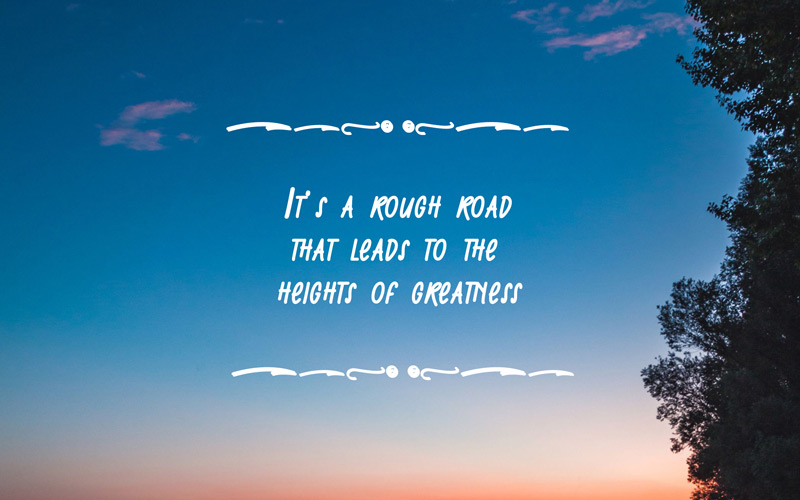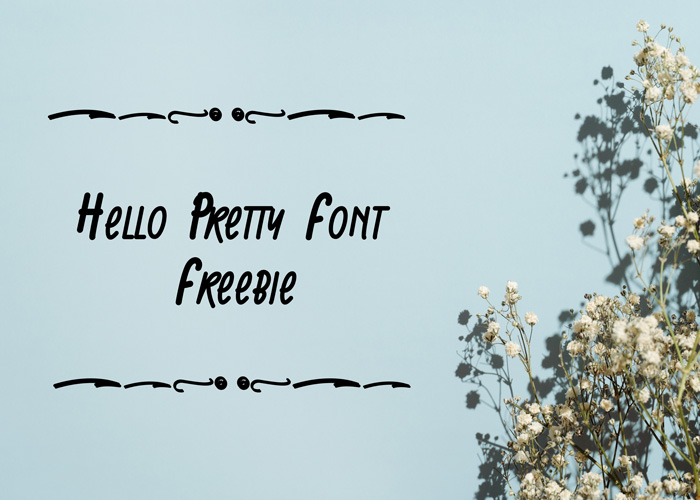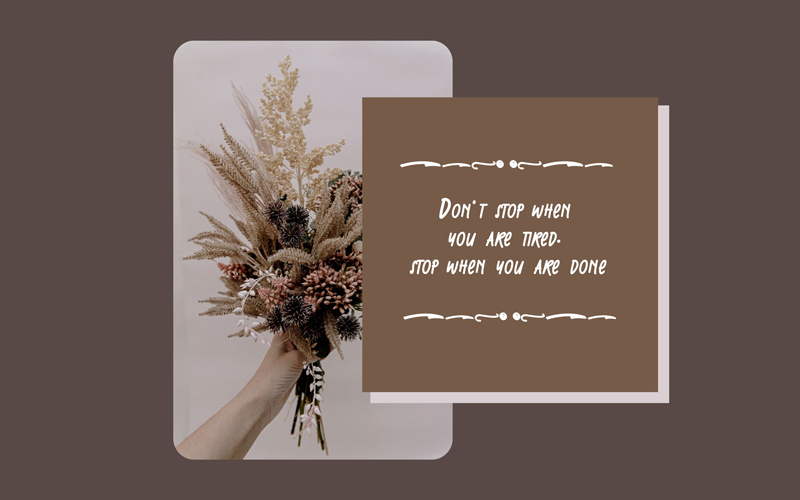
Hello Pretty Font Freebie
Introducing the Hello Pretty Font, a stunning and versatile typeface that will elevate any project to the next level! With its elegant and modern design, Hello Pretty is perfect for a wide range of uses, from branding and marketing to invitations and stationery.